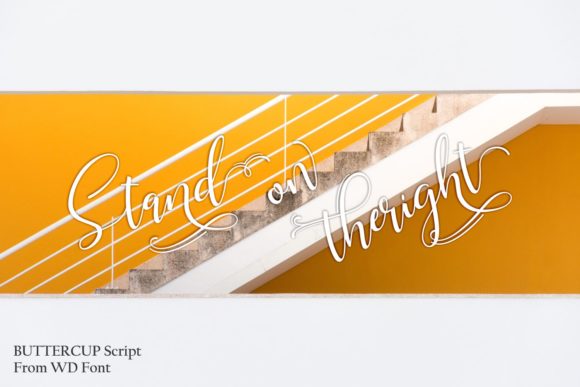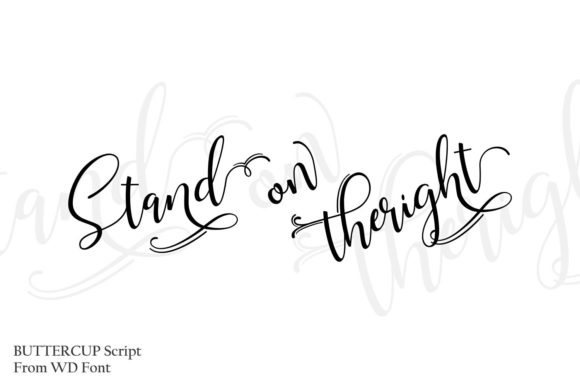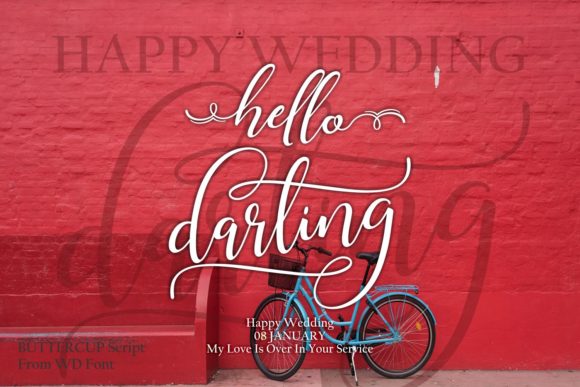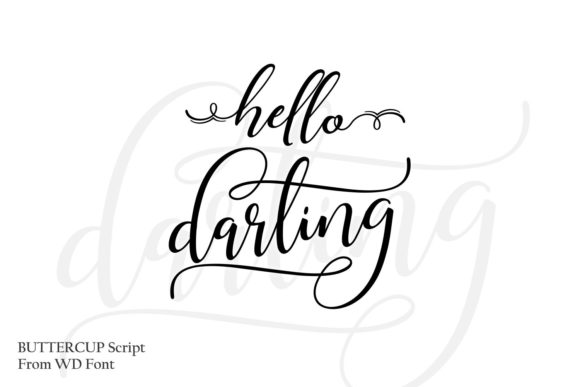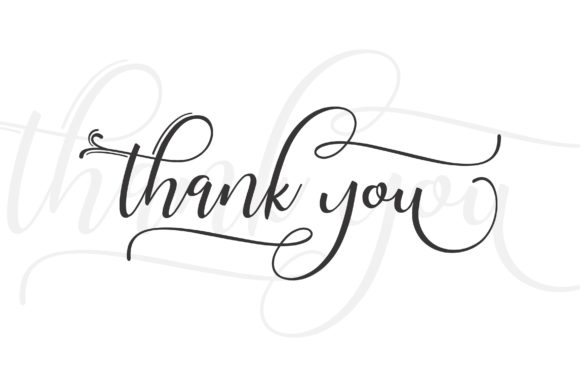
The Buttercup Font: A Beautiful, Smooth Handwritten Font for Elegant Headlines
I still remember the design project that led me to discover the Buttercup font. I was working on a branding project for a luxury wedding planner, and I needed a font that would convey elegance and sophistication. After hours of scouring font websites and trying out different fonts, I stumbled upon Buttercup. Its smooth, handwritten strokes and swashy alternates immediately caught my eye, and I knew I had found the perfect fit.
An Honest Review of Buttercup Font
What I Love About Buttercup Font
• ✨ Smooth, elegant strokes that are perfect for headlines and titles
• ✅ Swashy alternates that add a touch of sophistication and flair
• 🌟 Versatile and works well in both print and digital materials
• 👍 Easy to read even at smaller sizes, making it perfect for body text
While I absolutely love Buttercup font, there are a few quirks to be aware of:
• 🤔 Limited use of uppercase letters – while the font does have uppercase letters, they are not as stylized as the lowercase letters
• ⚠️ Not suitable for very small text sizes – while it’s easy to read at smaller sizes, it’s not ideal for very small text, such as footnotes or captions
The Story Behind Buttercup Font
Buttercup font was designed by a talented type designer who wanted to create a font that would evoke the feeling of elegance and sophistication. The designer drew inspiration from classic handwritten fonts, but with a modern twist. The result is a beautiful, smooth handwritten font that is perfect for headlines and titles.
Q: What is the best way to use Buttercup font?
A: Buttercup font is best used as a headline or title font, where its elegant strokes and swashy alternates can shine.
Q: Can I use Buttercup font for body text?
A: While Buttercup font is easy to read, it’s not ideal for large blocks of body text. It’s best used for headlines and titles, with a simpler font used for body text.
Q: Is Buttercup font suitable for digital use?
A: Yes, Buttercup font is suitable for digital use, and works well on a variety of devices and platforms.